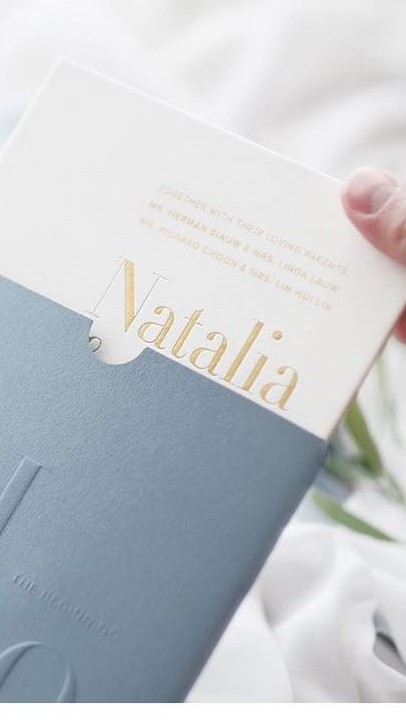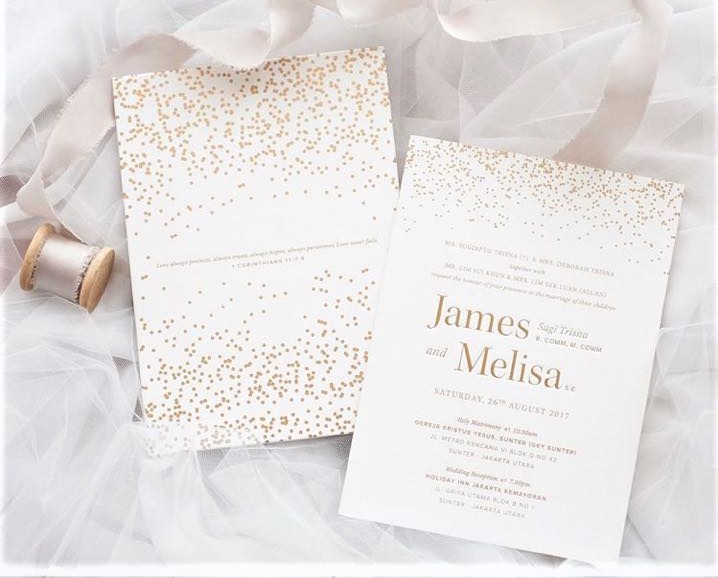
Hi All, does any know what this fonts is???
First Pic : “James Melisa” (The bride n the groom)
Second Pic : “Natalia”
These samples have a very light contrast which confuses my character scanner. Do you have another or perhaps an original with more pixels?